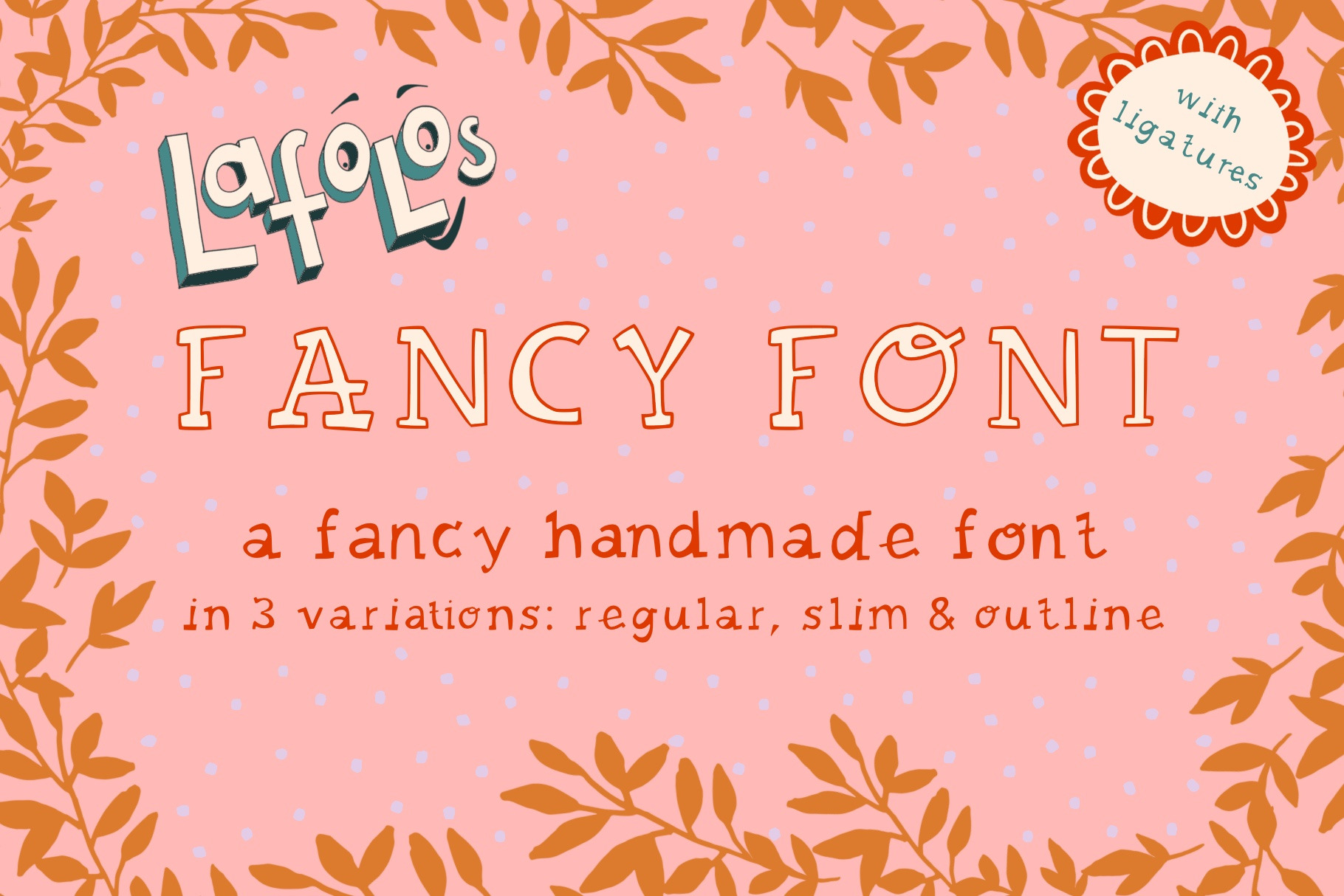
LAFOLOs Fancy Font
LAFOLOs Fancy Font - a very handmade fancy font for fun packaging designs, headlines, book titles and much more - 100% handmade fun!
Use the font to create individual designs for headlines in chapter books, greeting cards, notebooks, stickers and so much more. The font comes in three variations: slim, bold & outline. Combine them and triple the fun.